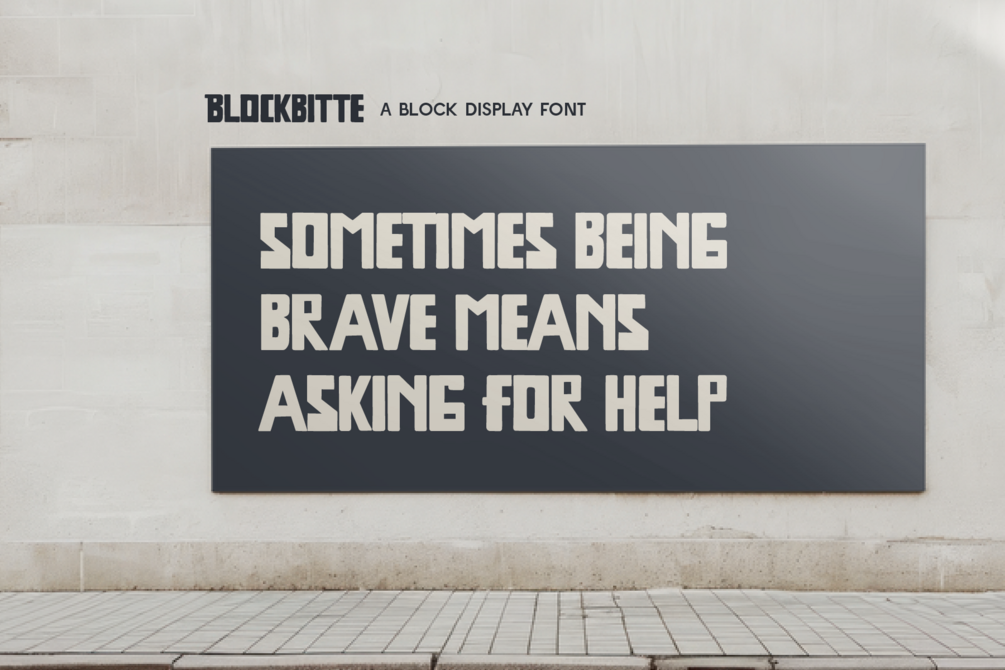
Blockbitte - Bold Display
Blockbitte is a robust block display font with bold, straight-edged forms that command attention. Its slightly irregular contours give it a handcrafted, vintage-inspired charm, while its broad letterforms ensure maximum impact in headlines, posters, packaging, and logos. Available in both upright and italic styles, Blockbitte combines solid readability with personality—perfect for brands and creatives seeking a strong, no-nonsense look.
Why you should choose Blockbitte:
- 🔠 Bold and Attention-Grabbing
- 🧱 Unique Block Style with Character
- ⚡️ Versatile Display Power
- 🫧 Clean and Modern With a Hint of Retro
- 🌐 Multilingual Support